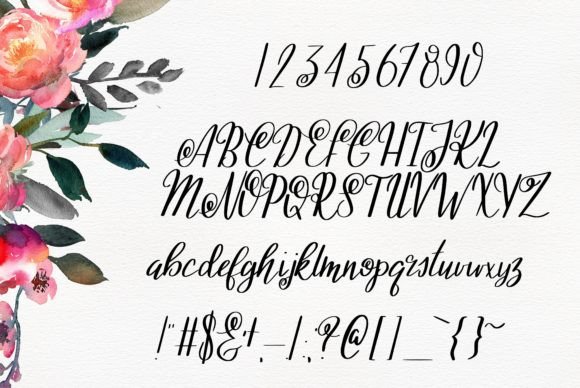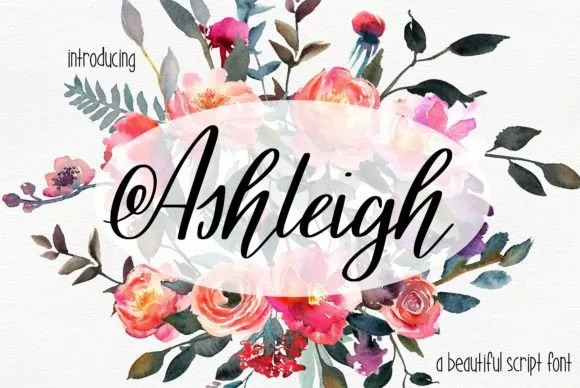
Ashleigh Font
About Ashleigh Font
Meet Ashleigh, the handwritten font with a personality as vibrant as yours! This fun and playful script font is your go-to choice for a wide range of projects, from invitations to greeting cards. With its casual yet stylish vibe, Ashleigh is the perfect font to infuse a touch of personality and warmth into any creative endeavor.
Ashleigh isn’t just a font; it’s a design companion that brings a playful spirit to your projects. The handwritten style adds a personal touch, making your text feel approachable and authentic. Whether you’re planning an event, sending out invitations, or crafting heartfelt greeting cards, Ashleigh is designed to make your words come alive with personality.
The casual yet stylish characteristics of Ashleigh make it versatile and suitable for various design applications. Its playful script is perfect for projects that require a balance of informality and style. Let Ashleigh be the choice when you want your designs to feel relaxed, friendly, and full of character.
Consider Ashleigh as the font that adds a unique and human element to your creative projects. Its handwritten charm invites a sense of approachability, making it ideal for connecting with your audience on a personal level.
In essence, Ashleigh is more than just a font; it’s a creative companion that brings personality and playfulness to your designs. Embrace its casual yet stylish vibe to make a statement and leave a lasting impression on your audience. Let Ashleigh be the girl who adds that touch of personality your projects have been looking for!